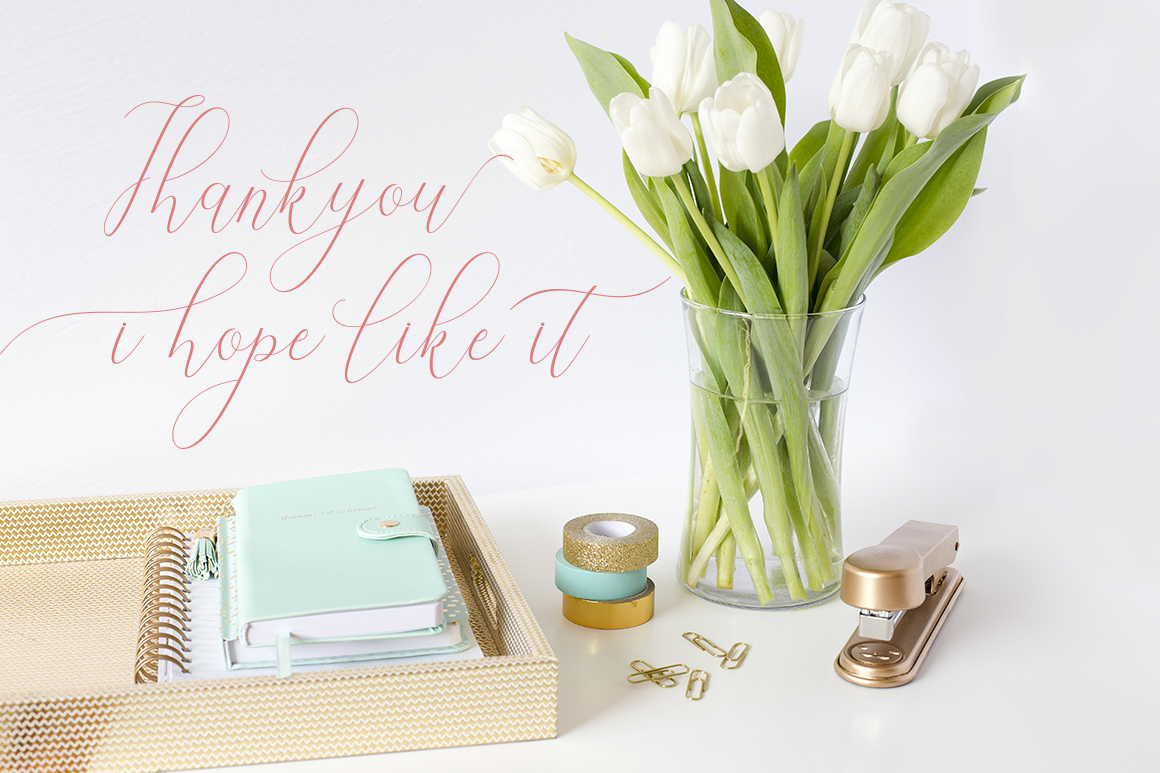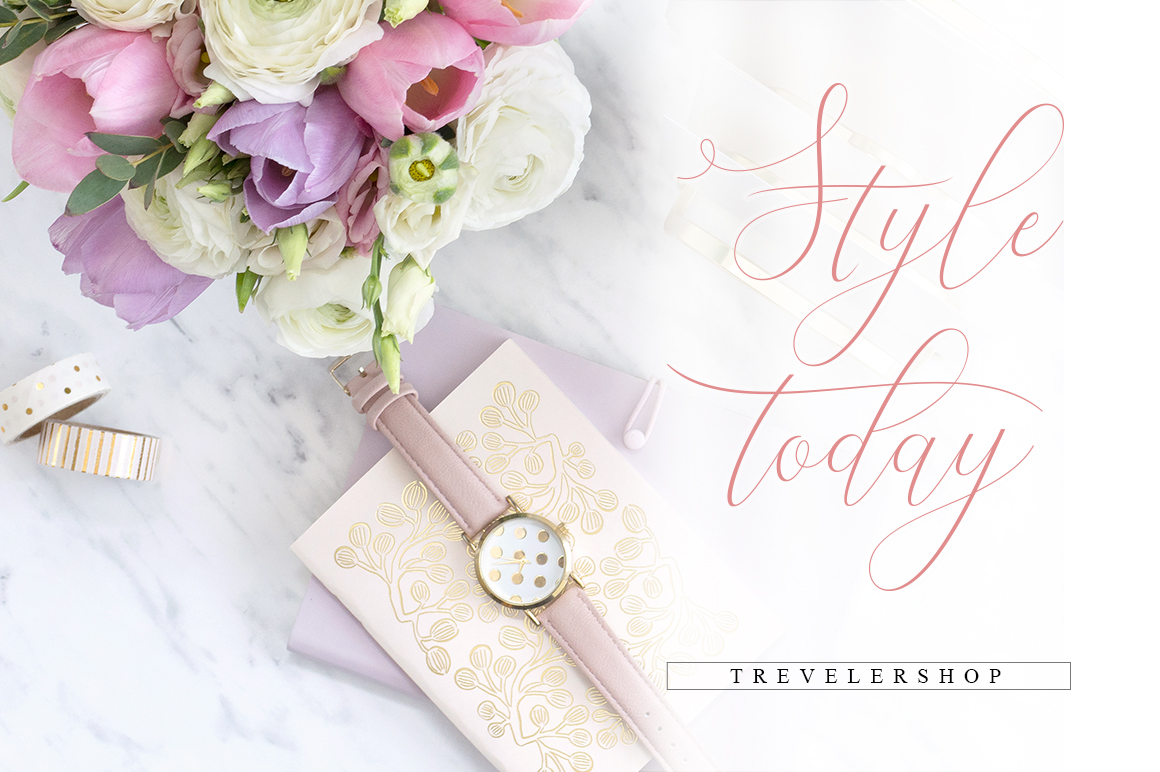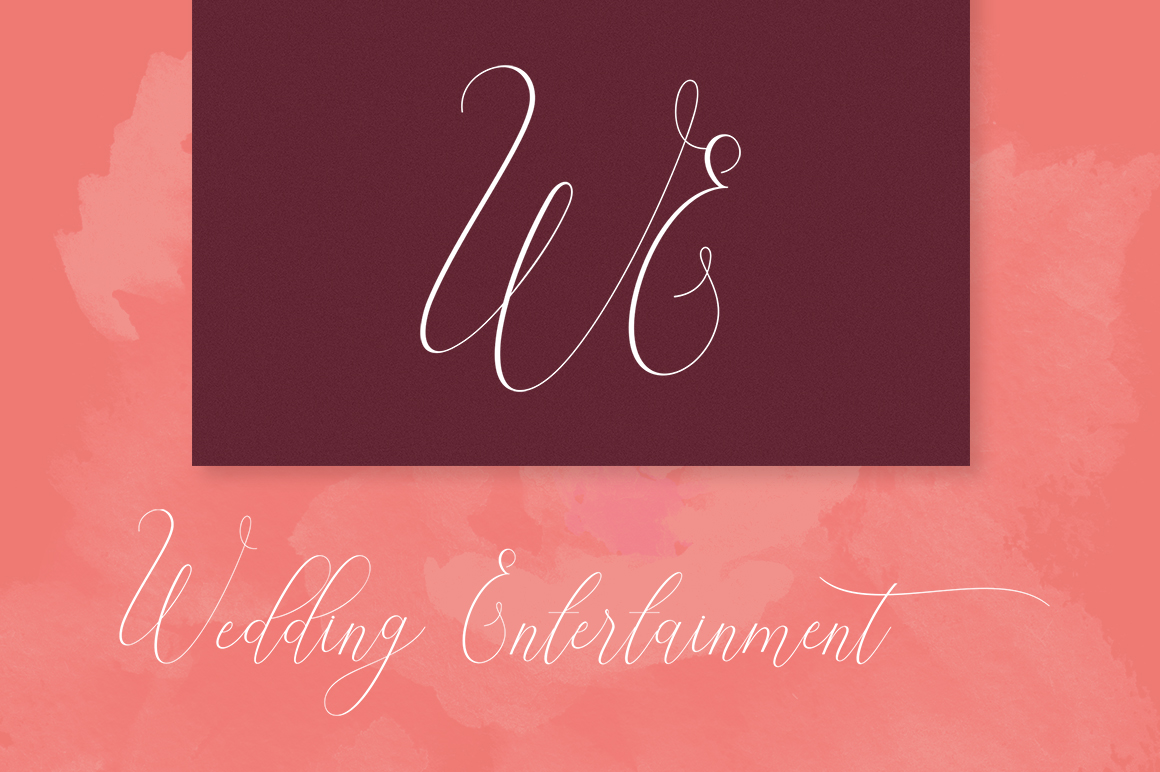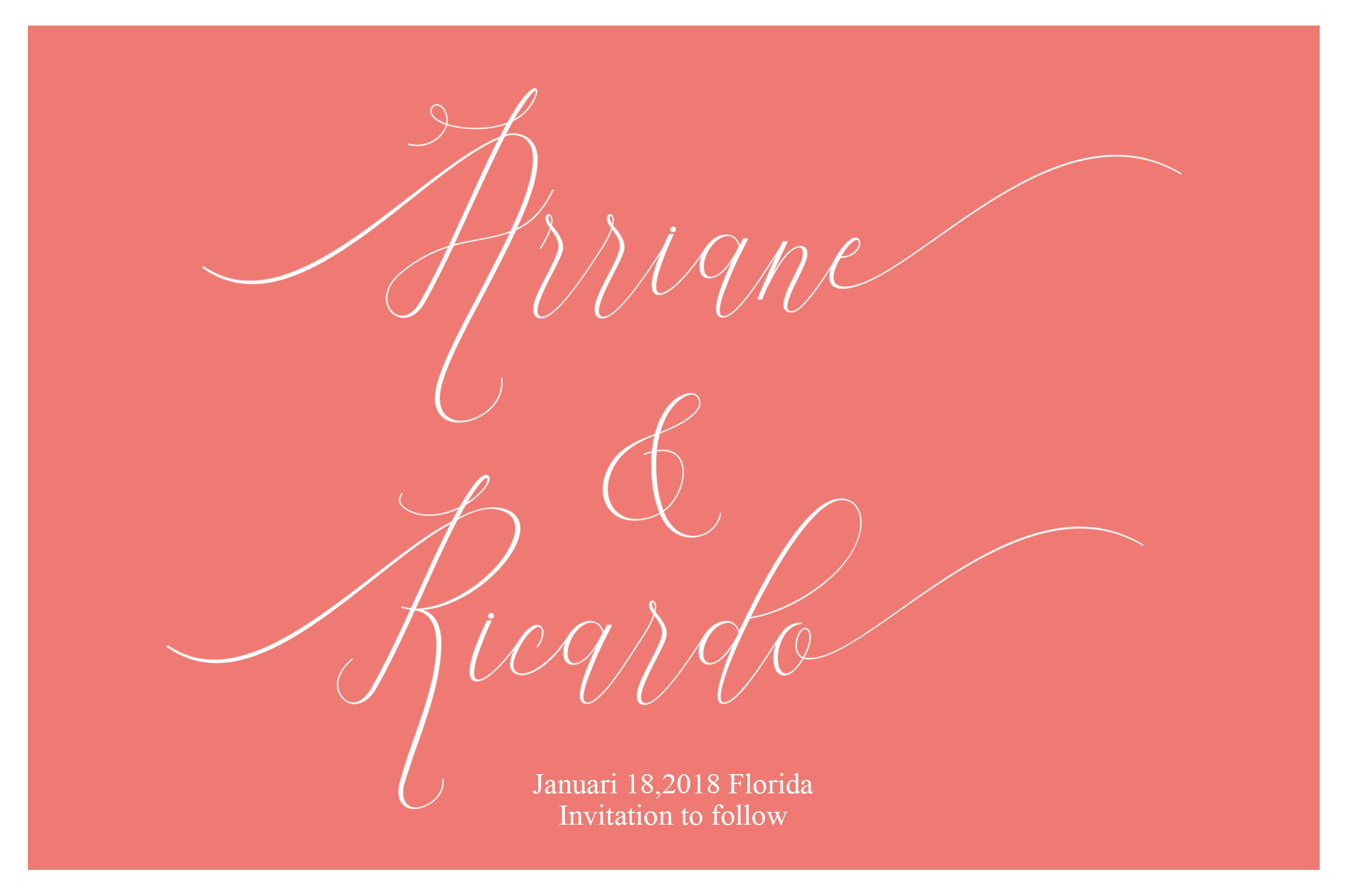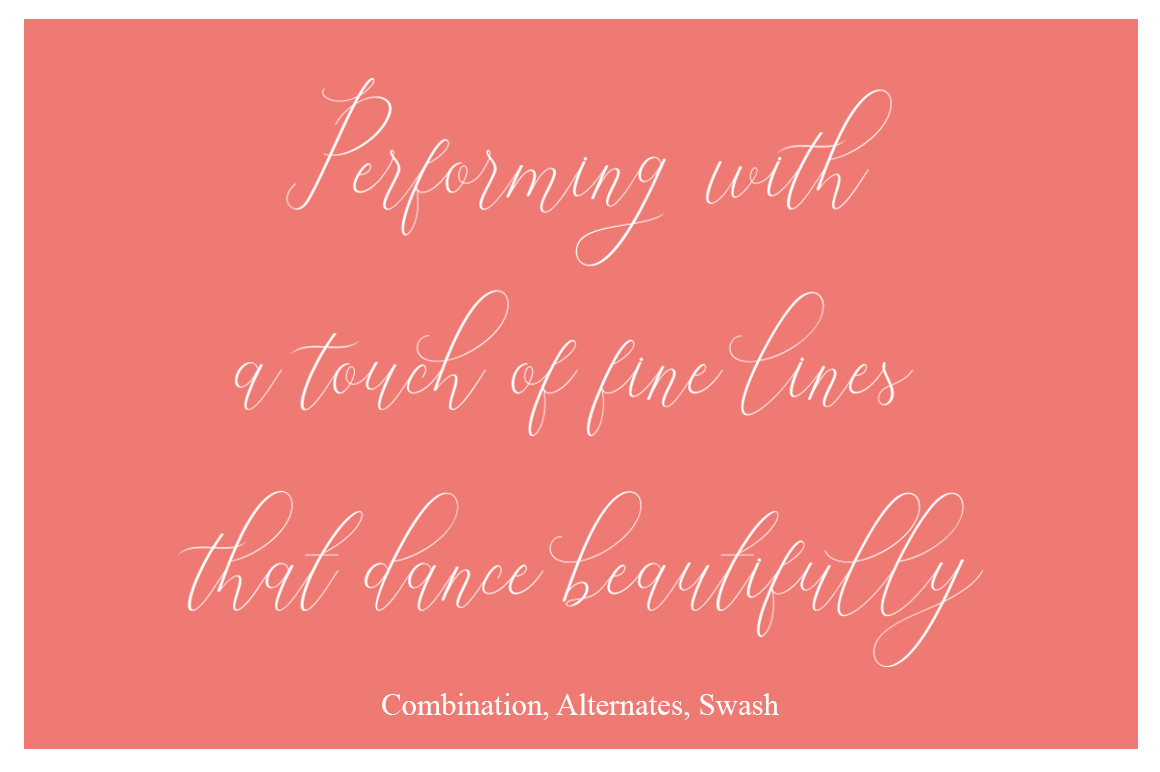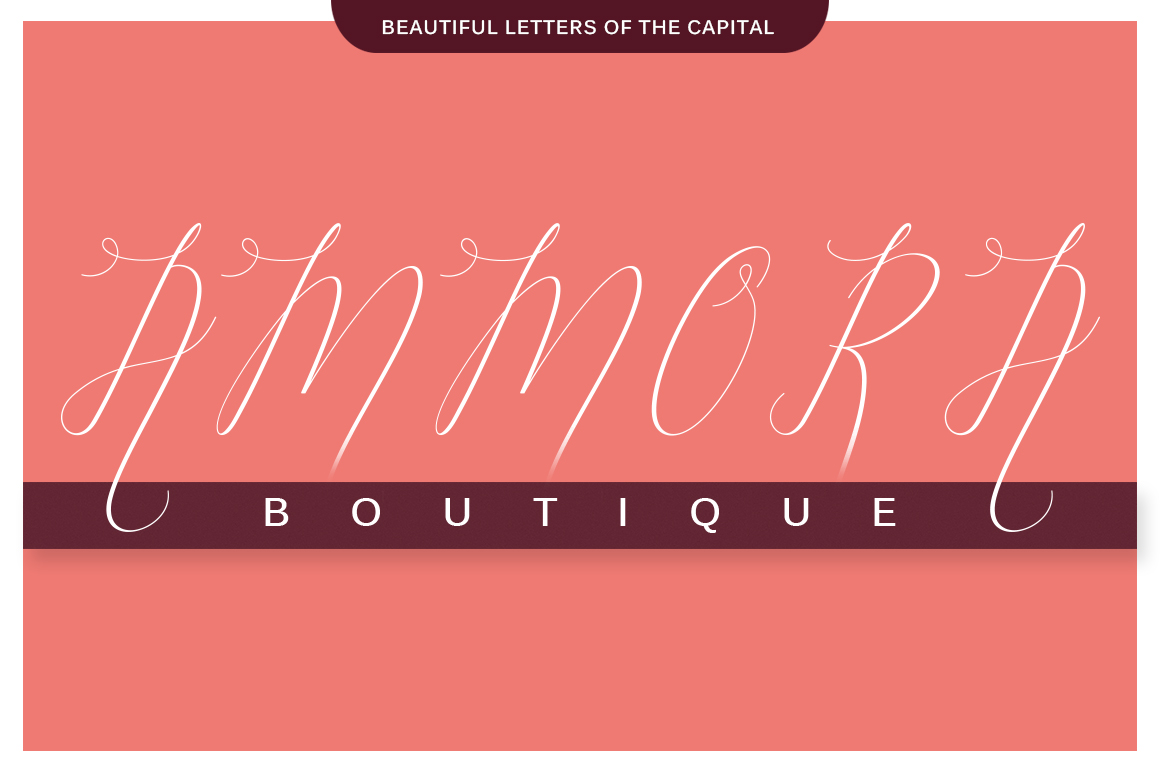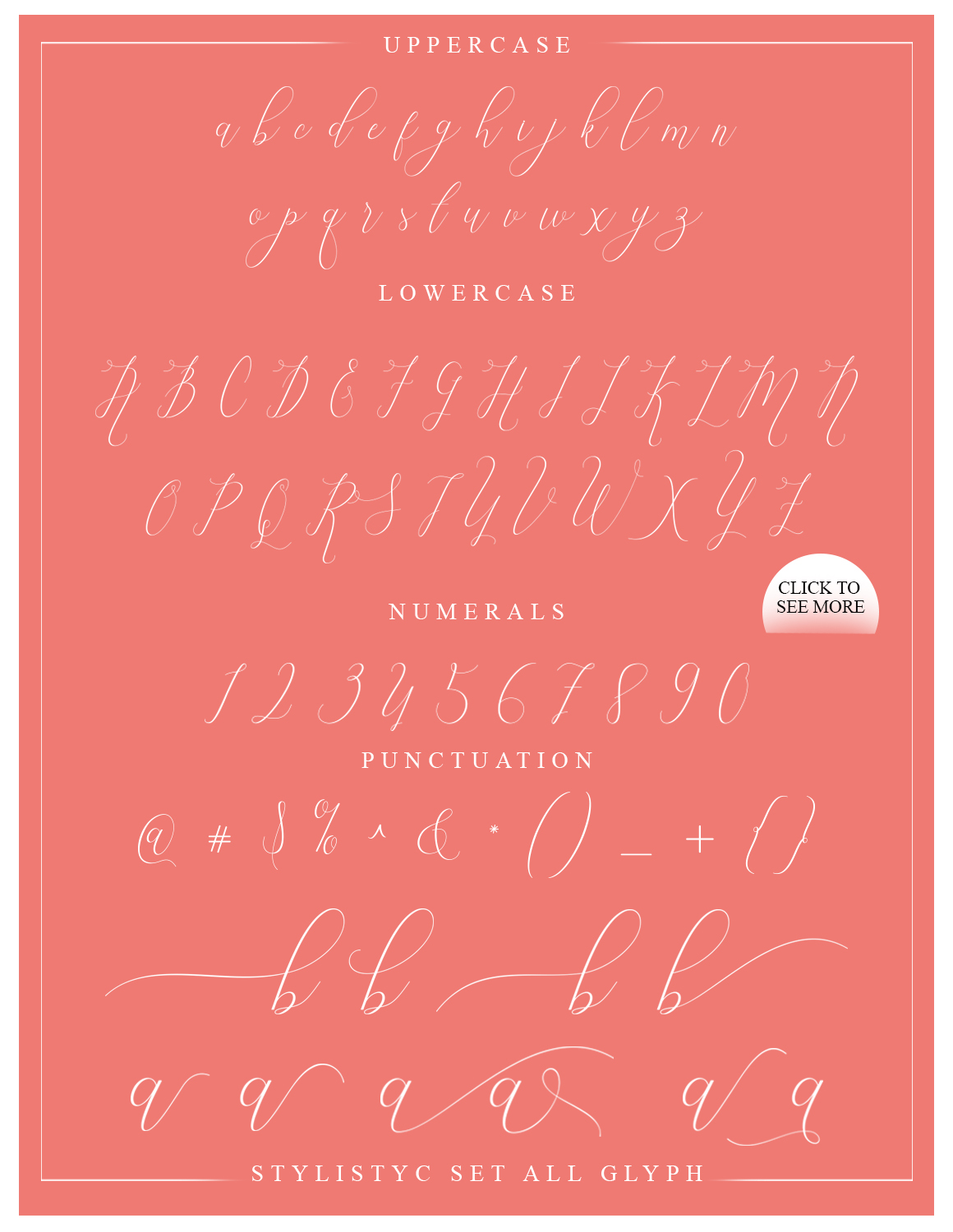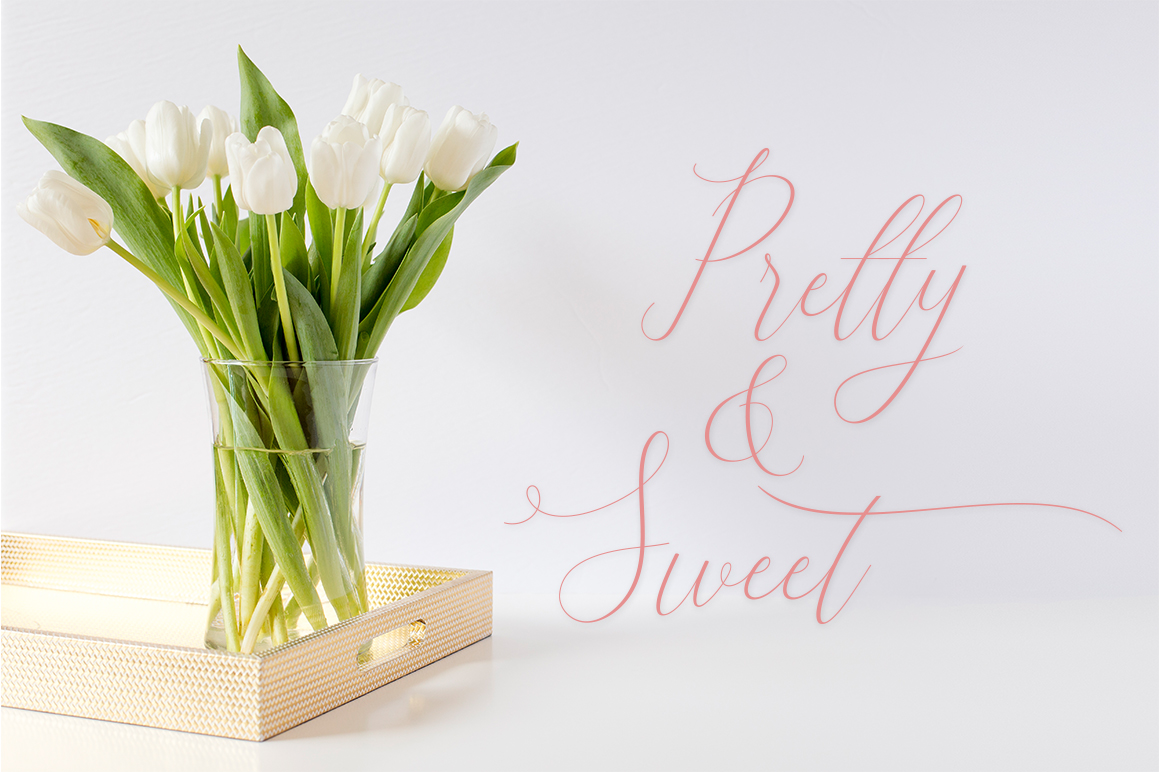
Vegas Style Font
About Vegas Style Font
Vegas Style is a new font that is a unique blend of classic and modern font styles. This font dances across your design space, giving some movement and eloquence to your projects’ end results.